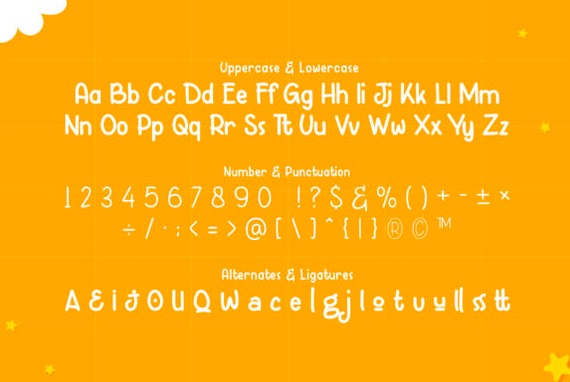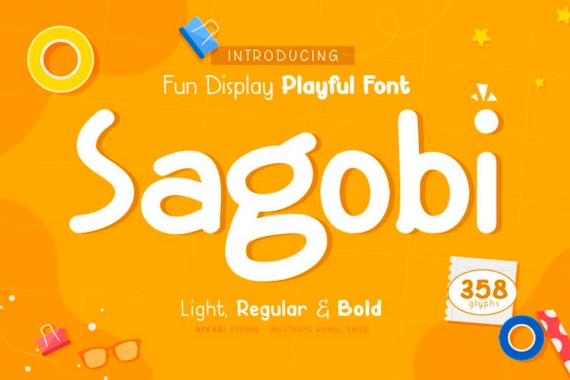
Sagobi Font is a playful and flexible display typeface that was created and shared by Afkari Studio. This script font is suitable for many modern projects such as posters, books cover, invitations, logos, headlines, greeting cards, baby clothing, presentations, quotes, and more.
Sagobi Playful Display Font